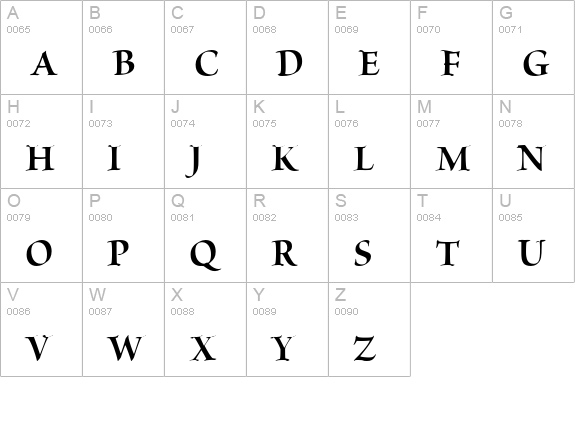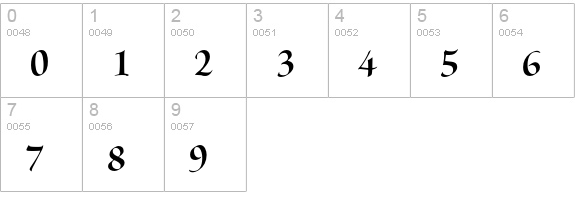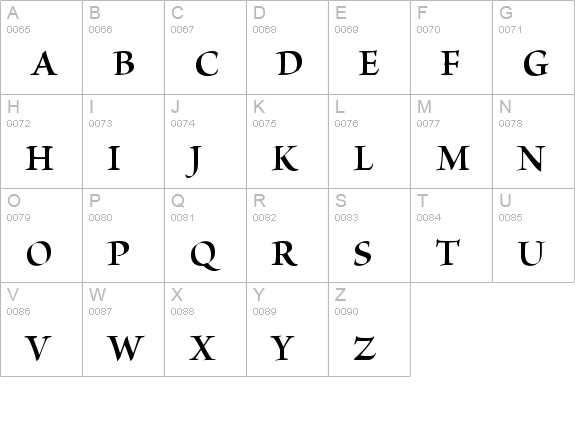
Brioso Pro Bold Display Font Details
Brioso Pro Bold Display is a strong, high-contrast variant in the Brioso typeface family \xE2\x80\x94 well suited to headlines, attention-grabbing titles, and strong calls-to-action.
Brioso Pro Bold Display font is a versatile and elegant typeface that exudes confidence and sophistication. Its bold and impactful design makes it perfect for headlines, titles, branding, and other display purposes. The strong strokes and subtle serifs give Brioso Pro Bold Display a timeless and classic look that will make any text stand out. What sets Brioso Pro Bold Display font apart is its seamless blend of tradition and modernity, making it a truly unique addition to any designer's toolkit. Whether you're working on a sleek corporate identity or a stylish editorial layout, this font will elevate your project to the next level. Best of all, Brioso Pro Bold Display font is available for free download at FontsMarket.com. So go ahead and add this exceptional typeface to your collection today and unleash your creativity with its bold and eye-catching style.